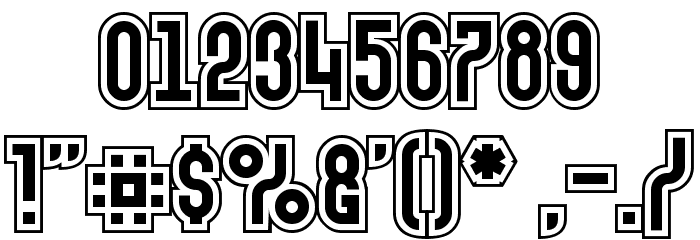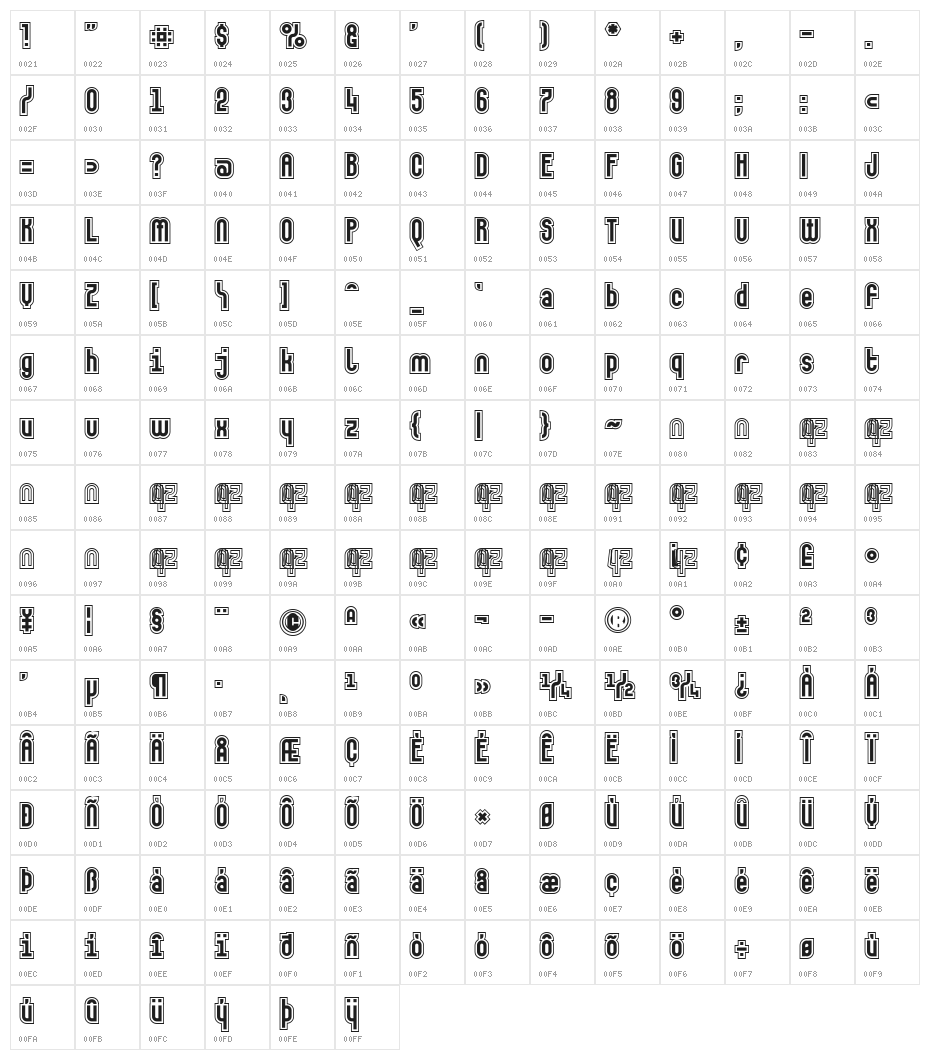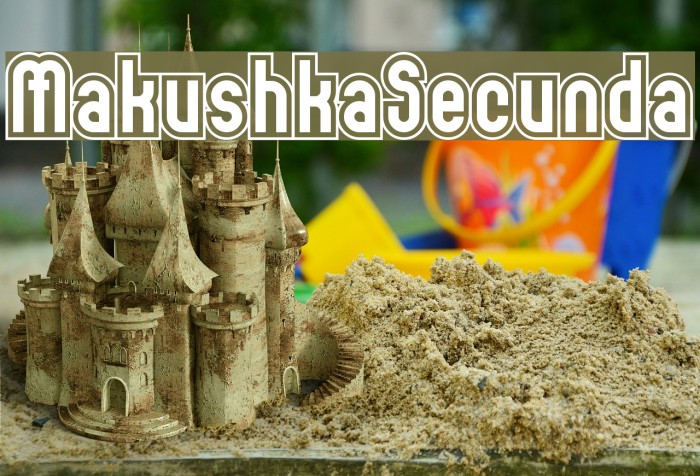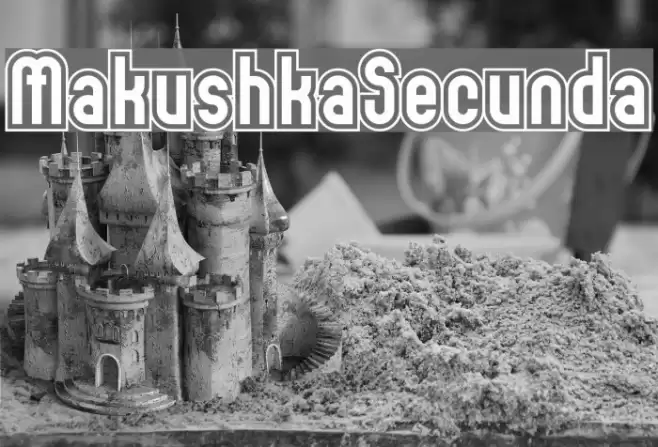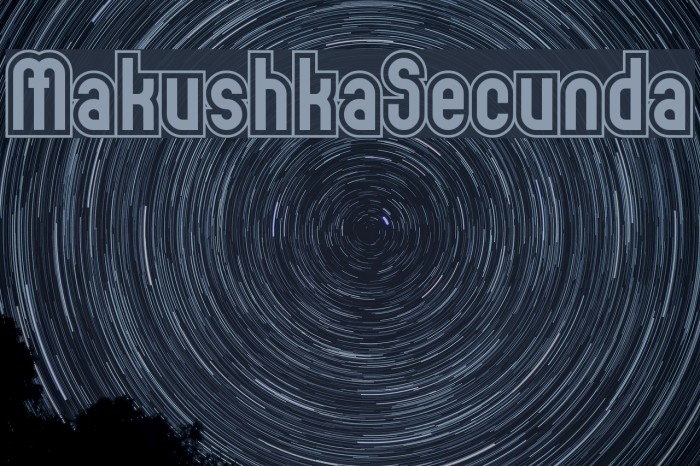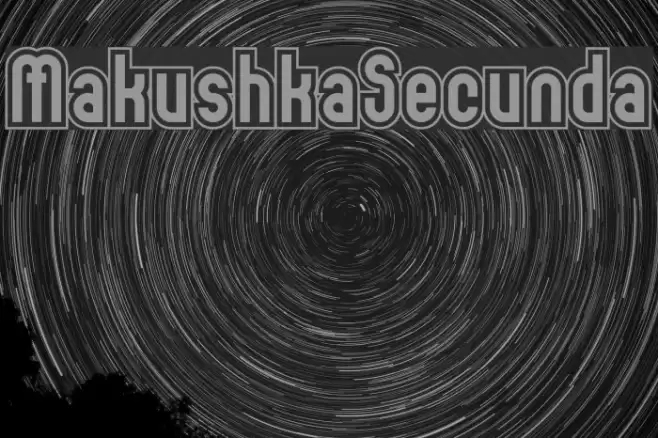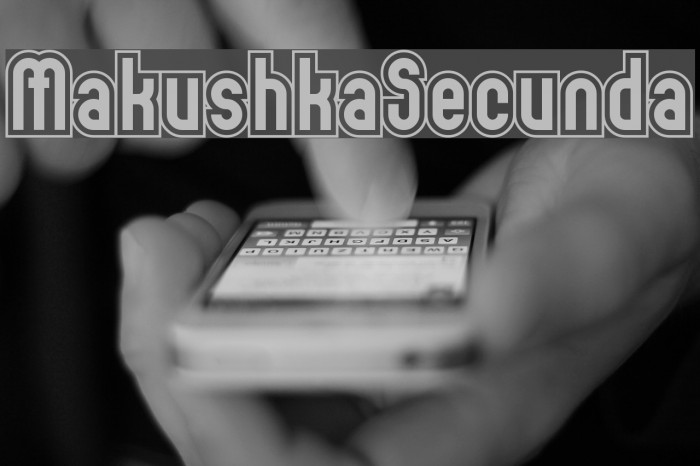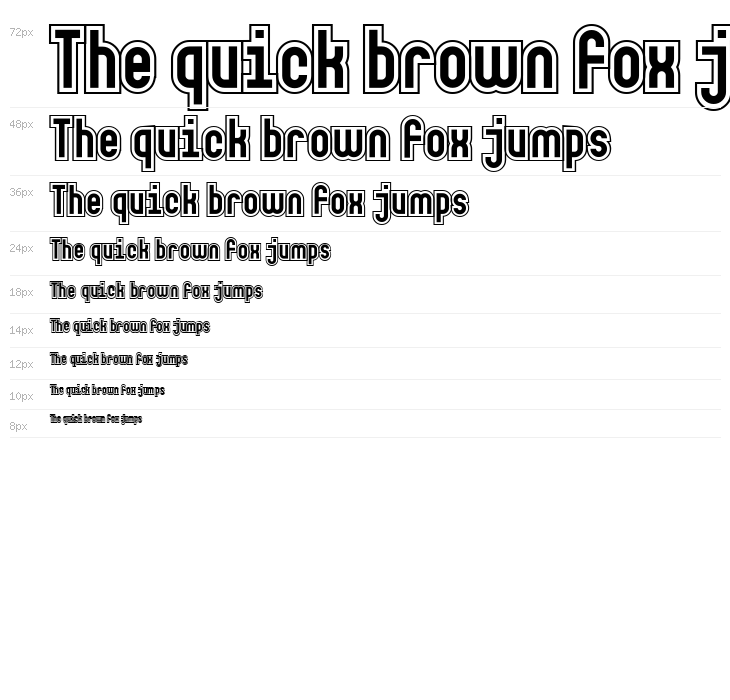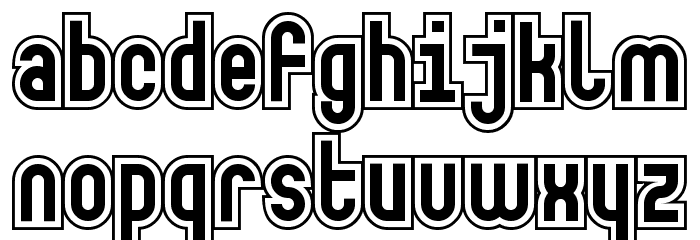
MakushkaSecunda Font
MakushkaSecunda Description
This font features a bold, geometric design with a strong outline that gives it a striking appearance. The characters are blocky and uniform, with a consistent thickness throughout, creating a sense of stability and strength. The uppercase and lowercase letters maintain a similar style, ensuring readability while adding a touch of modernity. The numerals and special characters are designed to match the overall aesthetic, making them suitable for a variety of applications. The font's bold outlines and solid fills make it ideal for attention-grabbing headlines and logos.